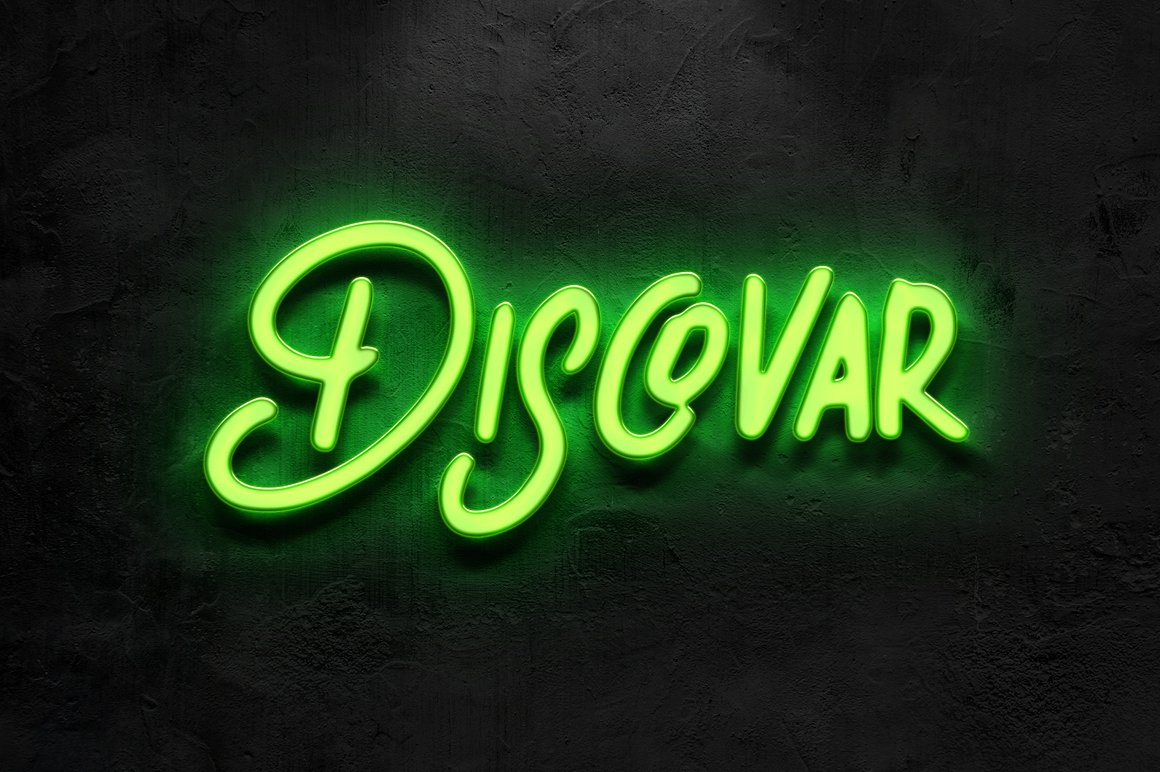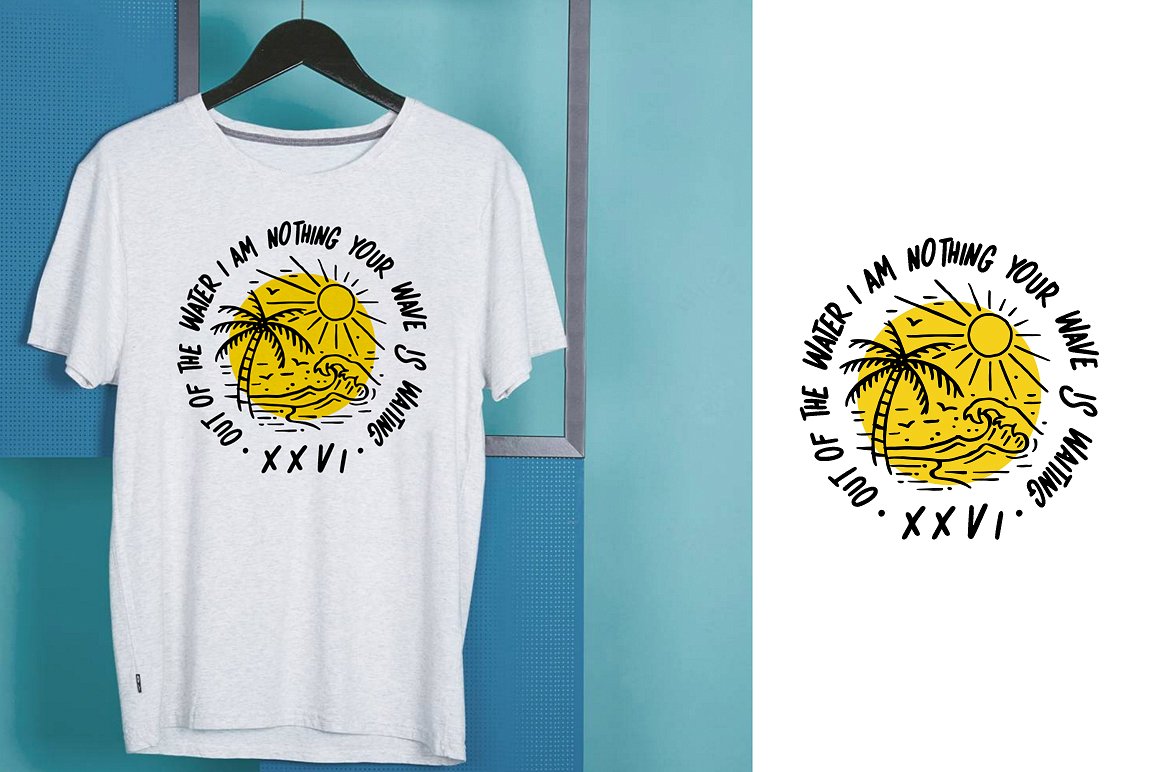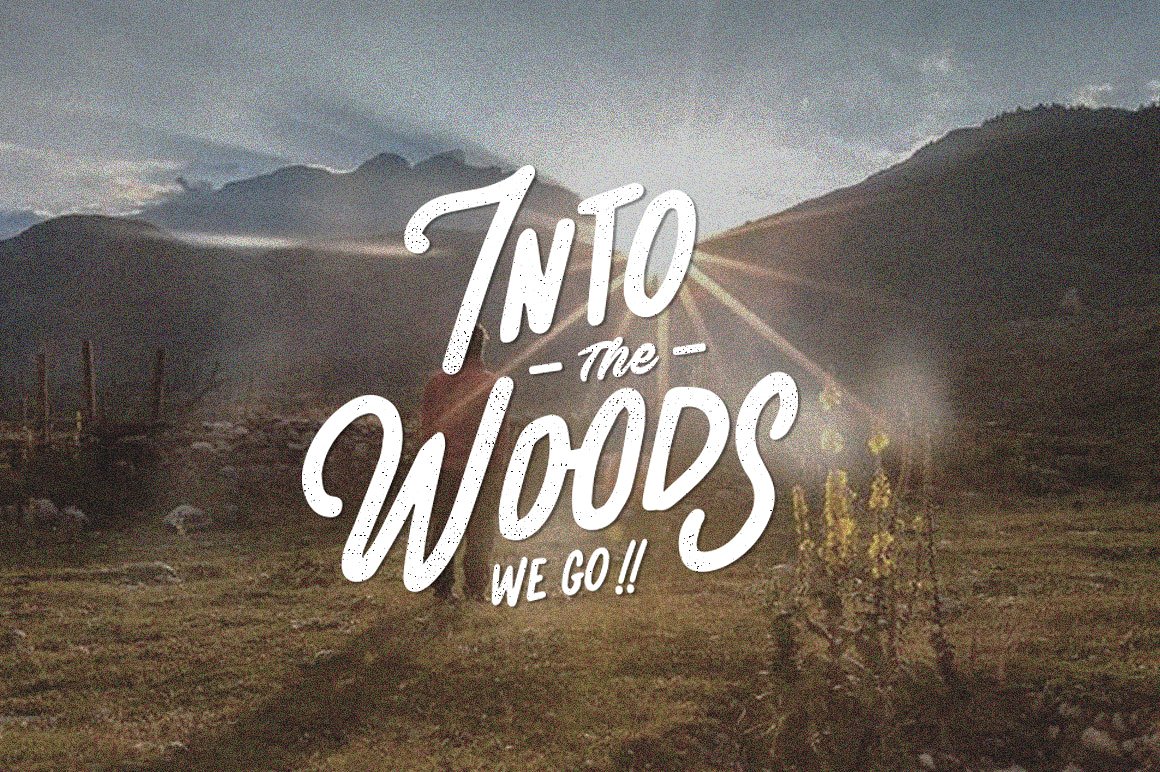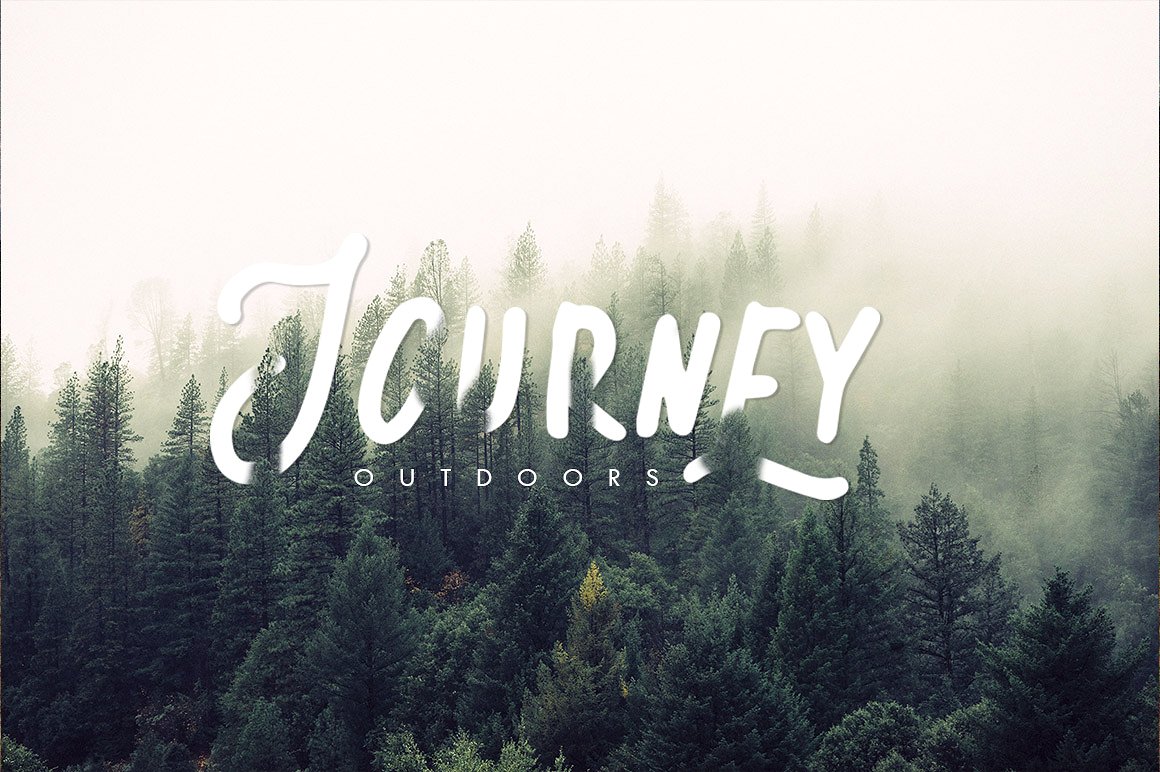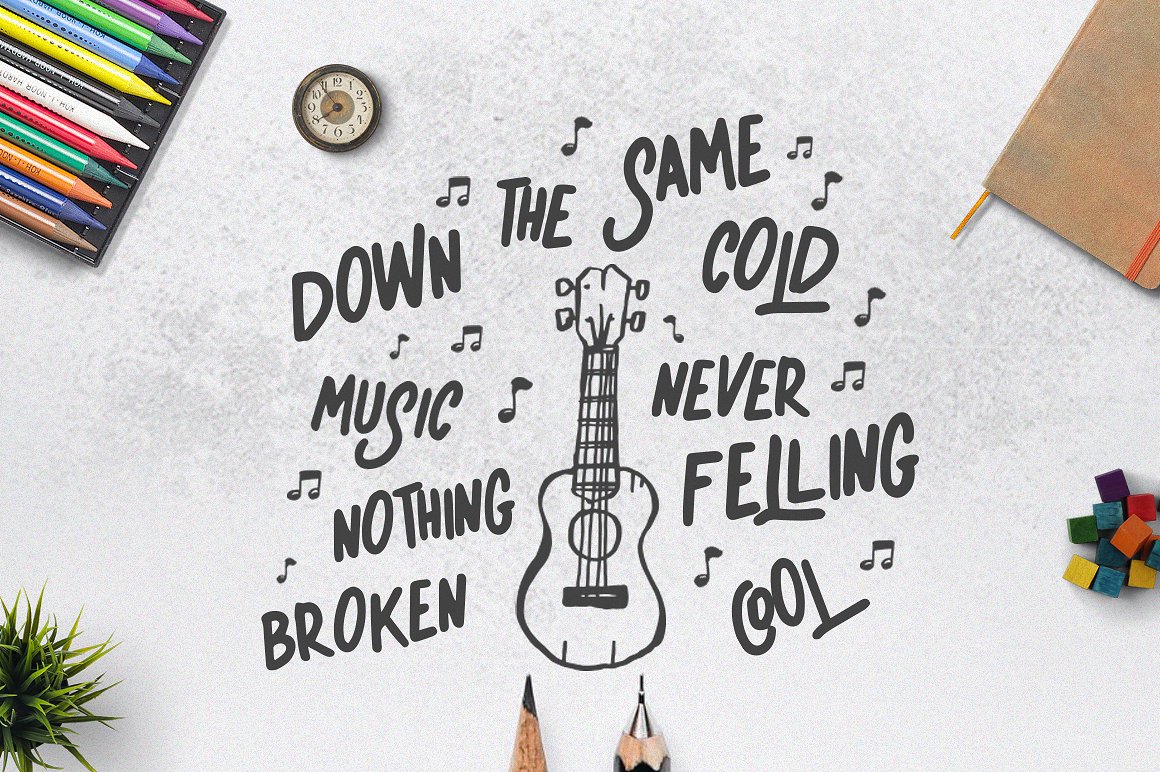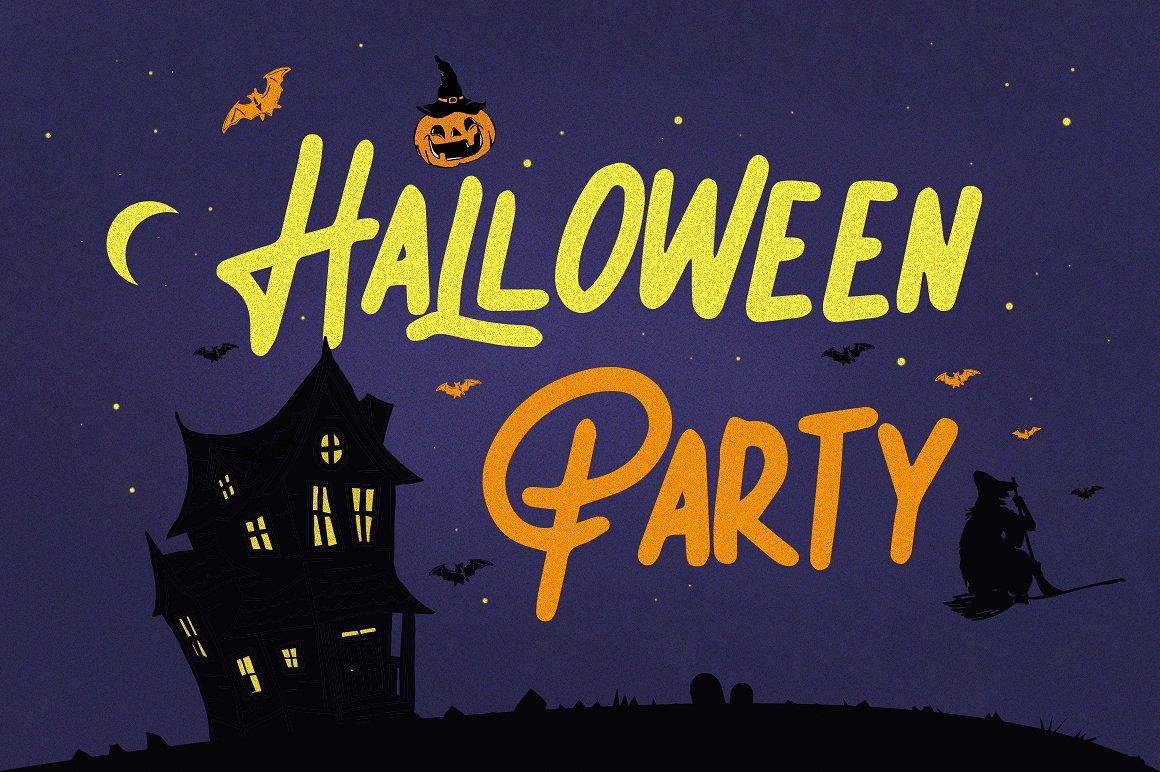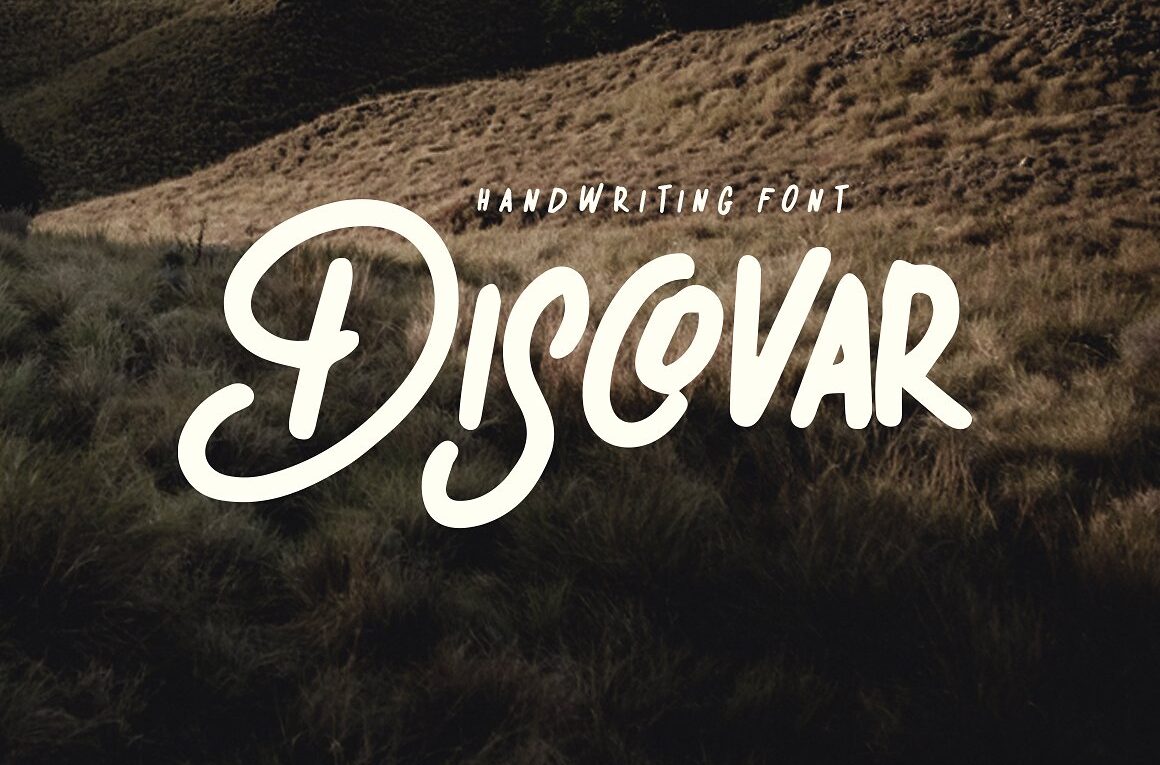
Discover the Beauty of Discovar Font: A Clean, Monoline Handwritten Font
Are you a designer or crafter looking for a unique and stylish font to elevate your creative projects? Look no further than Discovar Font, a clean, monoline handwritten font that is sure to impress. In this article, we’ll dive into the features and benefits of Discovar Font, and explore how it can add a touch of elegance and sophistication to your designs.
What is Discovar Font?
Discovar Font is a modern, monoline handwritten font that is characterized by its clean lines, simple shapes, and elegant curves. The font is designed to be highly legible and versatile, making it perfect for a wide range of applications, from digital designs to print materials. With its unique and stylish aesthetic, Discovar Font is sure to stand out from the crowd and add a touch of personality to your designs.
Key Features of Discovar Font
- Clean and Simple Design: Discovar Font features a clean and simple design that is free from unnecessary embellishments, making it perfect for designers and crafters who value minimalism and elegance.
- Monoline Handwritten Style: The font’s monoline handwritten style gives it a unique and personal touch, making it perfect for designs that require a human and approachable feel.
- Highly Legible: Discovar Font is designed to be highly legible, even at small sizes, making it perfect for use in a wide range of applications, from body text to headings.
- Versatile: The font is highly versatile and can be used in a wide range of design applications, from digital designs to print materials.
Benefits of Using Discovar Font
- Adds a Touch of Elegance: Discovar Font adds a touch of elegance and sophistication to your designs, making it perfect for high-end brands and luxury products.
- Improves Readability: The font’s clean and simple design makes it easy to read, even for extended periods of time.
- Increases Versatility: Discovar Font can be used in a wide range of design applications, making it a great addition to any designer’s font library.
- Unique and Memorable: The font’s unique and stylish aesthetic makes it sure to stand out from the crowd and leave a lasting impression on your audience.
How to Use Discovar Font in Your Design Projects
- Pair it with Other Fonts: Discovar Font pairs well with other fonts, making it easy to create unique and interesting typography combinations.
- Use it for Headings and Body Text: The font’s high legibility makes it perfect for use in both headings and body text.
- Experiment with Colors and Textures: Discovar Font looks great in a wide range of colors and textures, so don’t be afraid to experiment and find the perfect combination for your design.
In conclusion, Discovar Font is a beautiful, clean, monoline handwritten font that is sure to elevate your design projects. With its unique and stylish aesthetic, high legibility, and versatility, Discovar Font is a great addition to any designer’s font library. Whether you’re a designer or crafter, we highly recommend giving Discovar Font a try.